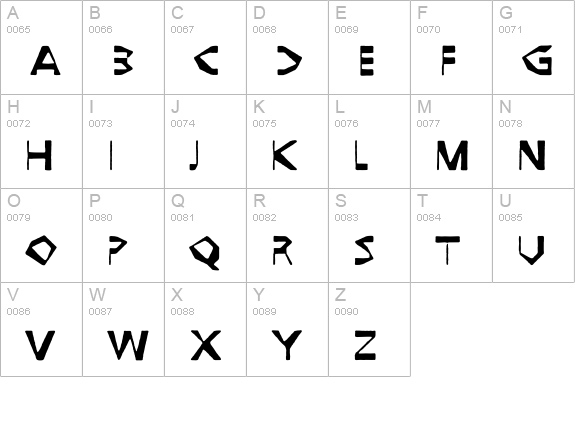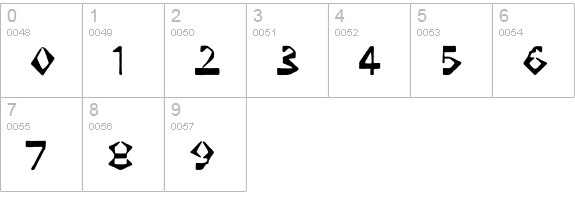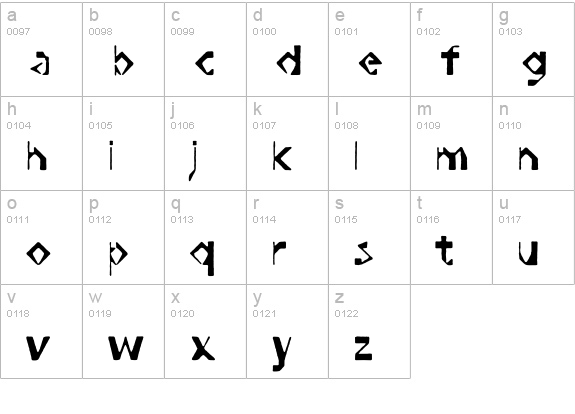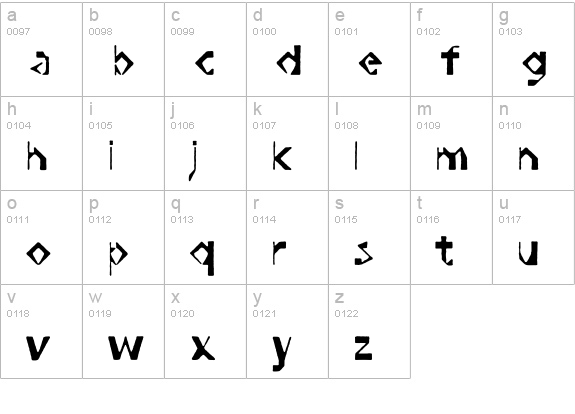
Assuri Font Details
Assuri font is a modern and elegant typeface that exudes sophistication and charm. Its sleek lines and stylish curves make it perfect for a wide range of design projects, from branding to editorial design. The versatility of Assuri font allows it to be used in various contexts, whether you're looking to create a professional business card or a creative poster. What makes Assuri font even more appealing is that it is available for free download at FontsMarket.com. This means that you can access this beautiful font without any cost, making it a valuable addition to your font collection. With its timeless design and effortless elegance, Assuri font is sure to elevate your designs and leave a lasting impression on your audience. Download Assuri font today and unleash your creativity with this stunning typeface.